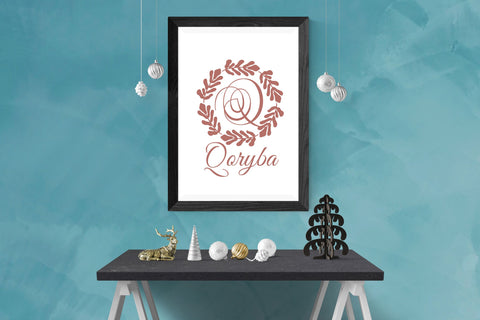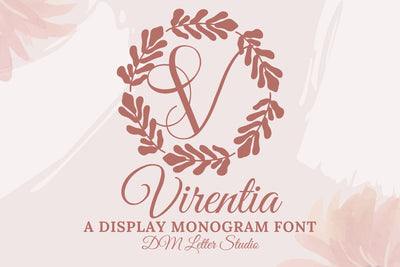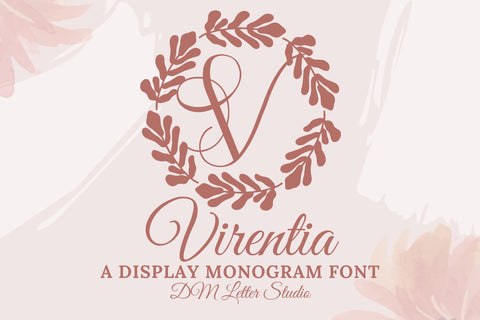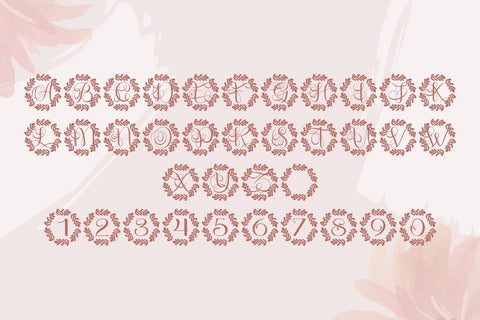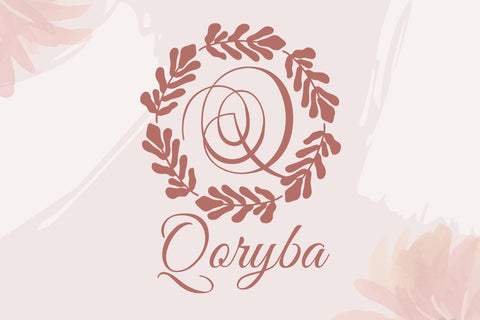
Virentia Monogram
Meet Virentia, the Monogram Font
Virentia Monogram turns simple initials into clean, botanical-inspired emblems that feel fresh, elegant, and premium. The strokes are smooth and balanced, so letters stay clear at any size. Because counters stay open, small tags stay crisp while large signs remain sharp and refined. Use it for wedding suites, boutique logos, keepsake gifts, wax seals, stationery, and luxury packaging. As a result, your designs look polished and gift-ready without extra decoration.
Why Virentia Monogram sells
First, setup is fast in Canva, Photoshop, and Illustrator. Next, the clean outlines cut and print beautifully for foil, emboss, deboss, engraving, laser, vinyl, DTF, and sublimation. Then layouts build quickly because spacing is steady and predictable. Moreover, Virentia pairs beautifully with a soft serif or a neat humanist sans, so cohesive collections come together faster. Therefore, your shop can roll out premium monogram sets with confidence and consistency.
Fast layouts with the Virentia Monogram Font
Start with a bold initial and let white space do the work. After that, place names, dates, or short titles using a separate supporting font. Because Virentia holds shape at small sizes, stickers, tags, labels, and cards stay clean. In addition, the proportions work well with oval borders, wreath frames, thin dividers, and simple leaf accents, so full sets come together quickly. Finally, save palette pairs like sage & ivory, emerald & cream, champagne & charcoal, or navy & pearl to reuse across your product line.
Creative uses and quick wins
- Logo seals, brand badges, and boutique marks
- Wedding initials for invitations, menus, and signage
- Gift tags, stickers, and keepsake box marks
- Premium labels for candles, soap, perfume, and packaging
Design tips for Virentia Monogram Font
Keep the monogram as the hero and use a separate font for any extra text. Also, give the initial breathing room so details stay readable at small sizes. For a premium finish, try foil, embossing, or letterpress on thick stock. Finally, export at 300 DPI for print and at 2× size for web so edges stay smooth everywhere.